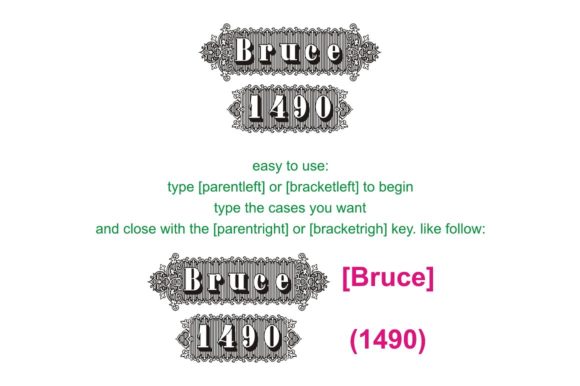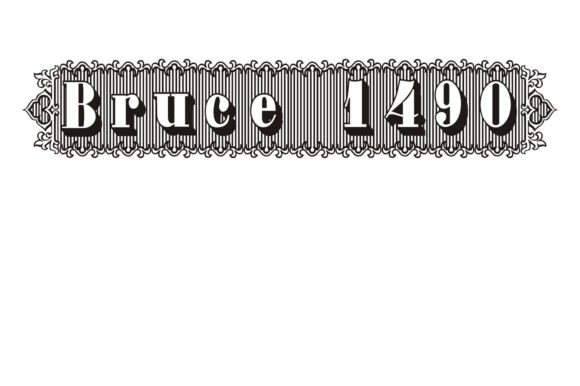
Bruce 1490 Font: A Timeless Classic Inspired by George Bruce’s Rare Catalog
The world of typography is a fascinating one, with a rich history that spans centuries. For designers and crafters, finding the perfect font can be a daunting task, but sometimes, all it takes is a glimpse into the past to inspire a masterpiece. This is where the Bruce 1490 font comes in – a stunning typeface that draws its inspiration from the 1490 font style featured in George Bruce’s rare 1882 catalog.
The Origins of Bruce 1490 Font
The ornamental ribbons that adorn the Bruce 1490 font come from meticulous research conducted on the 1490 font style from George Bruce’s 1882 catalog. This catalog, part of Intellecta’s collection of rare books and catalogs, offers a glimpse into the typographic world of the 19th century. The original font style, with its intricate designs and classic elegance, has been carefully studied and reimagined to create the Bruce 1490 font.
Design and Craftsmanship
The Bruce 1490 font is a testament to the art of type design. The process of creating this font involved a deep understanding of the original 1490 font style and a commitment to preserving its essence while making it relevant for modern use. The result is a font that exudes sophistication and charm, perfect for designers and crafters looking to add a touch of classic elegance to their projects.
The GrasVibertTwo Typeface
The typeface used to compound the Bruce 1490 font work is the GrasVibertTwo, also from Intellecta. This typeface, with its unique characteristics and classic feel, complements the Bruce 1490 font perfectly, allowing designers to create stunning visual pieces that are both timeless and contemporary.
Applications and Inspirations
The Bruce 1490 font, with its ornate details and elegant lines, is versatile and can be used in a variety of design projects. From wedding invitations and event branding to packaging and editorial design, this font adds a level of sophistication and refinement that is hard to achieve with more common typefaces. Crafters, too, can find inspiration in the Bruce 1490 font, using it for hand-lettering projects, custom signs, and other decorative pieces.
Why Choose Bruce 1490 Font?
For designers and crafters looking for a font that stands out from the crowd, the Bruce 1490 font offers several compelling reasons:
- Unique Aesthetic: With its roots in a rare 19th-century catalog, the Bruce 1490 font brings a unique aesthetic to any project.
- Versatility: Its classic elegance makes it suitable for a wide range of applications, from digital designs to print materials.
- Timeless Appeal: The font’s design ensures it remains timeless, avoiding the trend-driven nature of some contemporary typefaces.
- Quality and Craftsmanship: The attention to detail in the Bruce 1490 font reflects a high level of craftsmanship, ensuring that it can elevate any design project.
The Bruce 1490 font is more than just a typeface – it’s a connection to the past, a nod to the craftsmanship of typography, and a tool for creating something truly beautiful. Whether you’re a designer looking to add elegance to your project or a crafter seeking inspiration for your next piece, the Bruce 1490 font is sure to impress. With its origins in George Bruce’s rare 1882 catalog and its expert recreation using the GrasVibertTwo typeface, this font is a testament to the enduring power of classic design.
In conclusion, the Bruce 1490 font offers a unique blend of history, elegance, and versatility, making it a valuable addition to any designer’s or crafter’s toolkit. Its connection to George Bruce’s 1882 catalog and its recreation using the GrasVibertTwo typeface ensure that it remains a font of exceptional quality and aesthetic appeal.